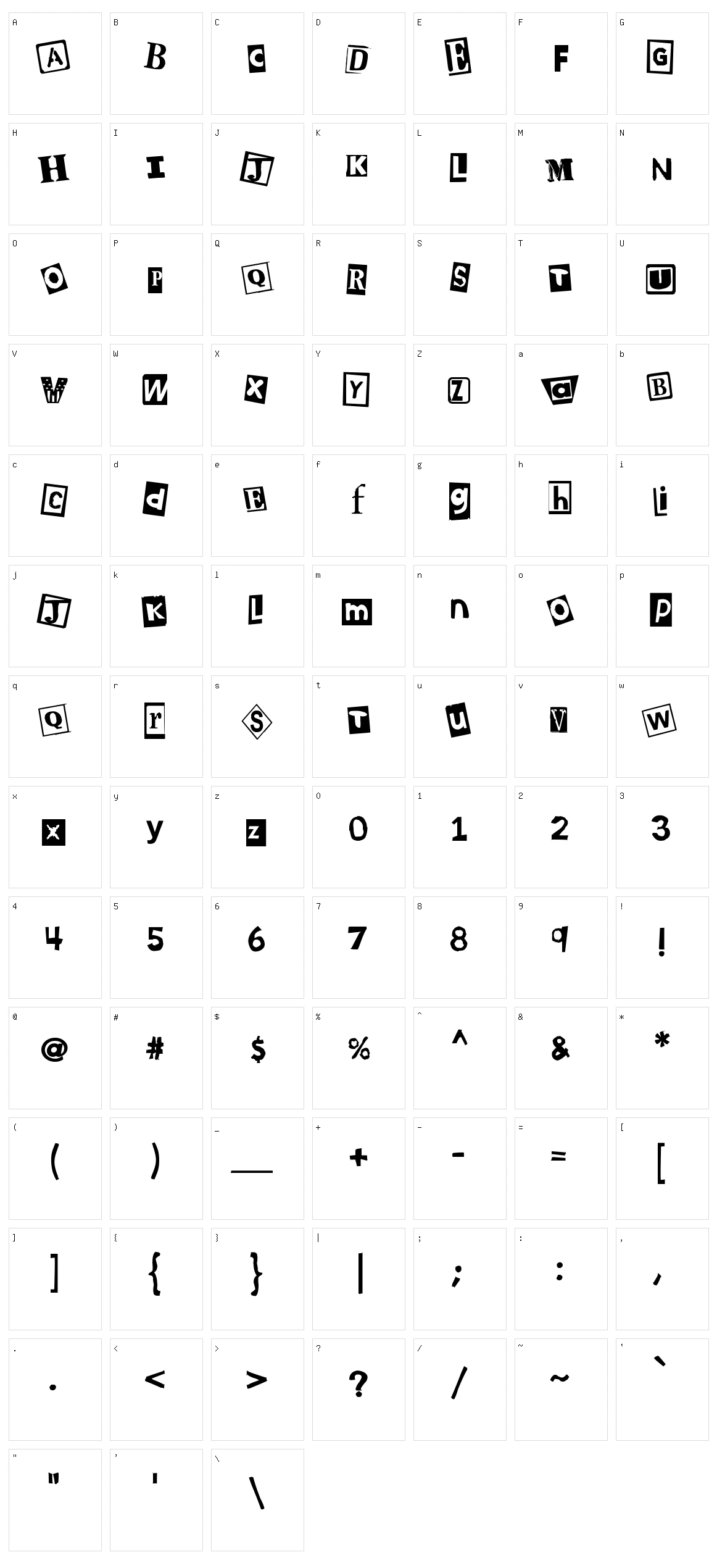
The free font KB3 We Have Your Chocolate is carefully designed by K26 Fonts, showcasing a thoughtful balance of creativity and usability and falls under the Distorted font style. When you download the ZIP file, it contains only 21.32 KB of font files, making it lightweight and quick to download. Please review the license details below to understand permitted usage and distribution rights. If license information is not available, we recommend using this font for personal projects only or contacting the author directly for commercial usage permissions.